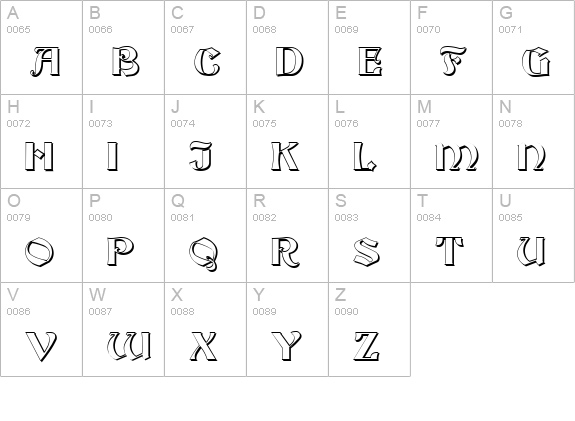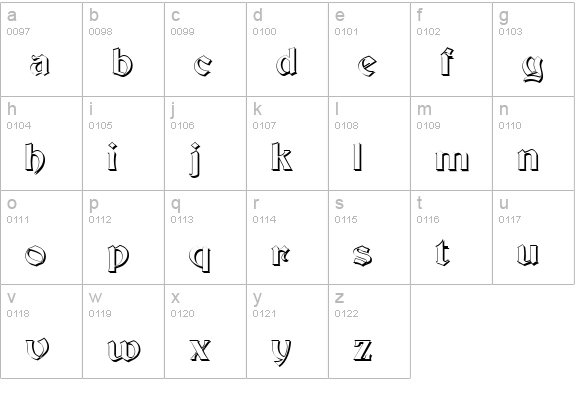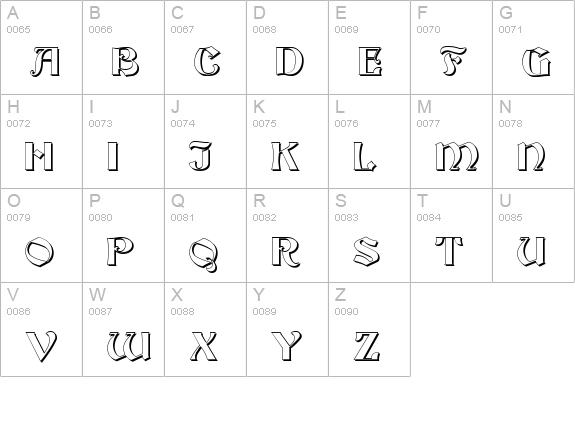
FZ JAZZY 19 3D Font Details
Introducing FZ JAZZY 19 3D font, a stylish and modern typeface that will add a touch of sophistication to your designs. This eye-catching font features bold, 3D lettering with a jazzy flair that is sure to make a statement. Perfect for posters, flyers, logos, and more, FZ JAZZY 19 3D font is versatile and easy to use. The best part? This fantastic font is absolutely free! You can download FZ JAZZY 19 3D font for no cost at FontsMarket.com. Don't miss out on this amazing opportunity to enhance your projects with this unique and dynamic typeface. Upgrade your designs with FZ JAZZY 19 3D font today!